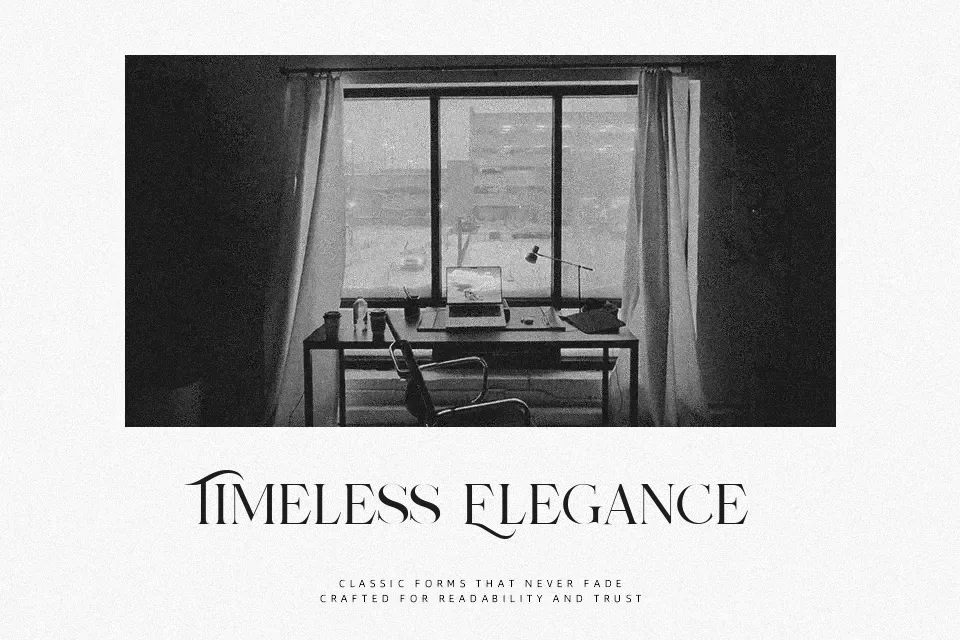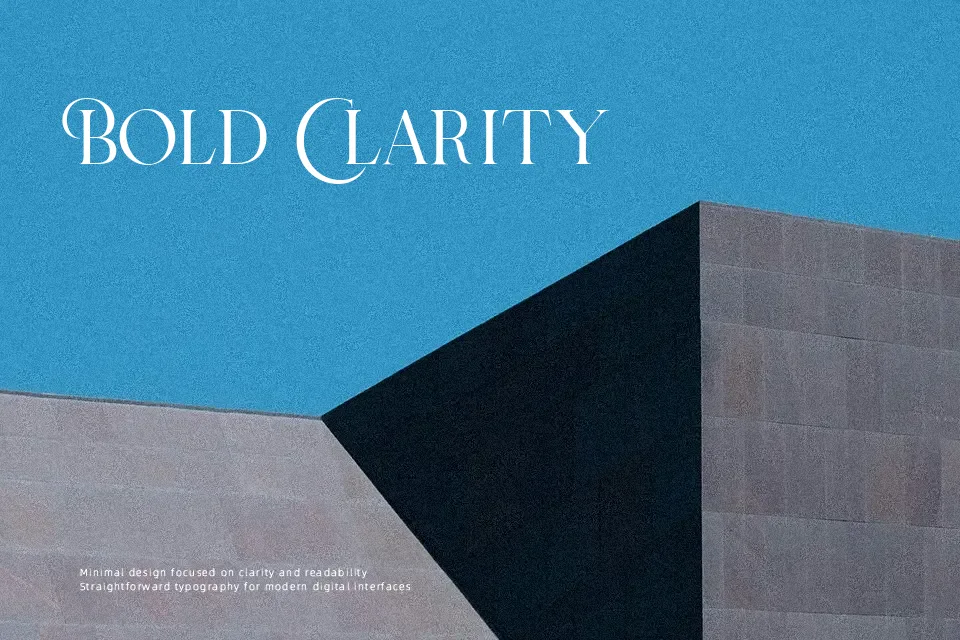
Rusilla Serif Font
Designed by Dealita Studio
Rusilla Serif Font presents a highly refined structural foundation, driven by a dramatic contrast between its thick vertical stems and delicate horizontal strokes. The typeface maintains open proportions and balanced spacing, allowing the letterforms to breathe comfortably when set at display sizes. Gentle curves and crisp terminals lend the design a sophisticated, contemporary aesthetic. The high stroke contrast helps maintain an elegant rhythm in larger headlines, making it a strong choice for luxury branding, wedding invitations, and fashion editorials. However, these delicate thin strokes become a limitation in continuous reading contexts, where small captions or dense paragraphs may easily lose visual clarity. Ultimately, the design shines brightest when allowed to dominate a layout with generous surrounding whitespace.
luxury cosmetic branding
wedding invitation suites
fashion magazine headlines
boutique packaging
Perfect for branding, fashion, and headline, with a classic and display style.